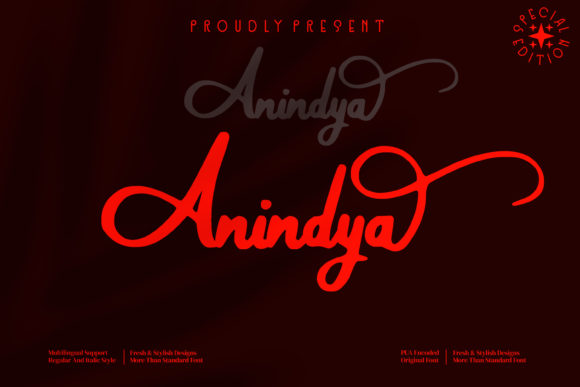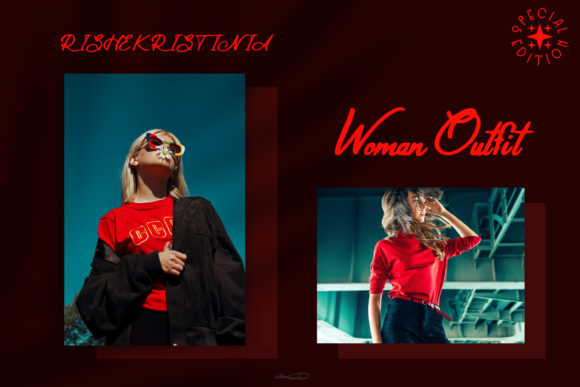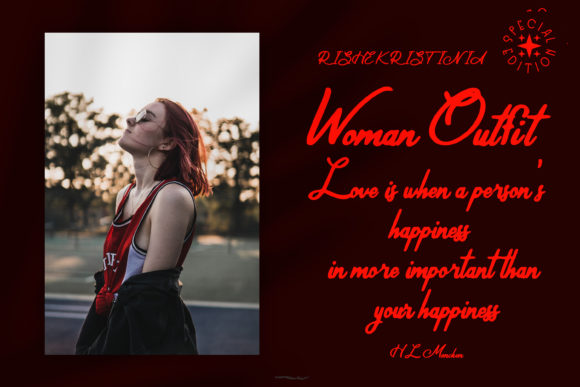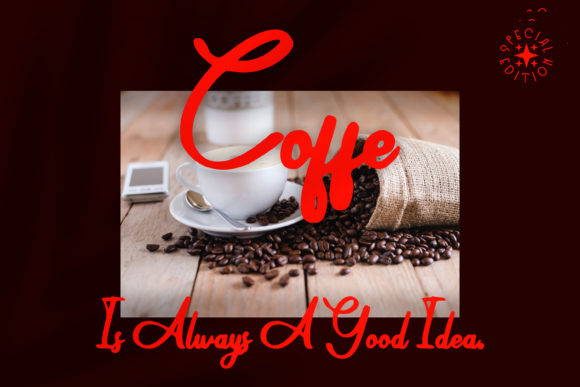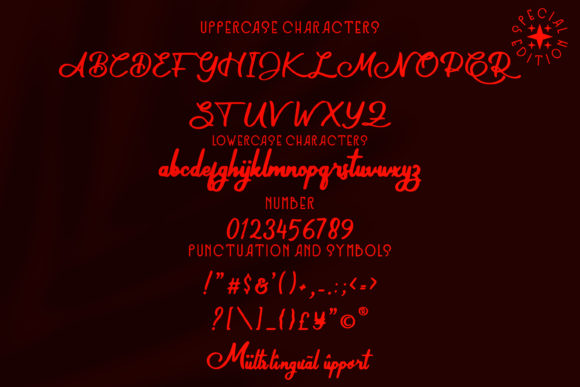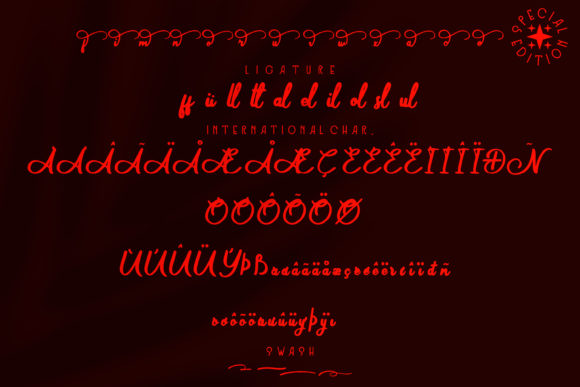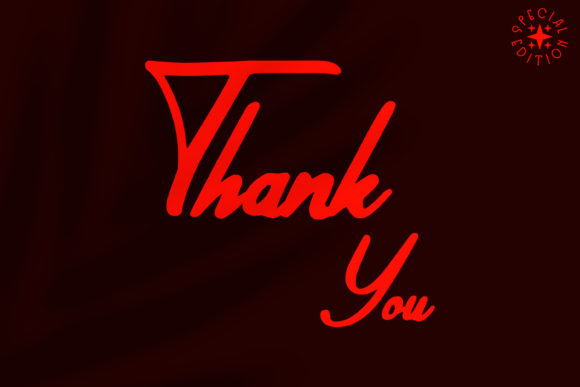
Anindya Font
About Anindya Font
Anindya is a beautiful handwritten font suitable for any projects such as logos, branding projects, homeware designs, product packaging, mugs, quotes, posters, shopping bags, t-shirts, book covers, name cards, invitation cards, greeting cards, labels, photography, watermark, special events, and all your other luxury projects that need a premium signature taste.